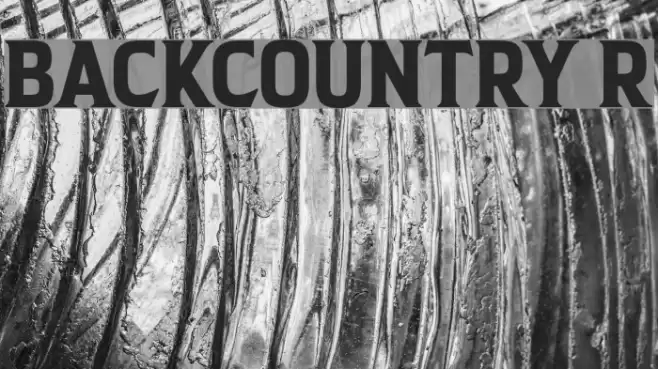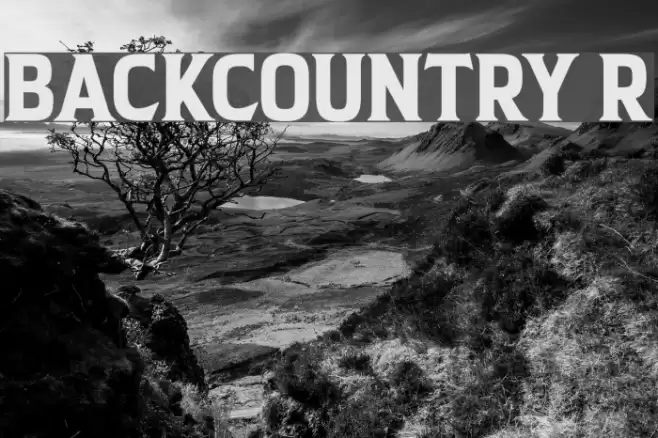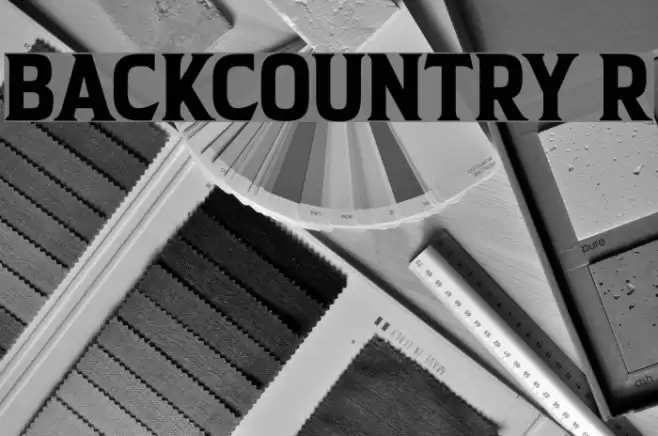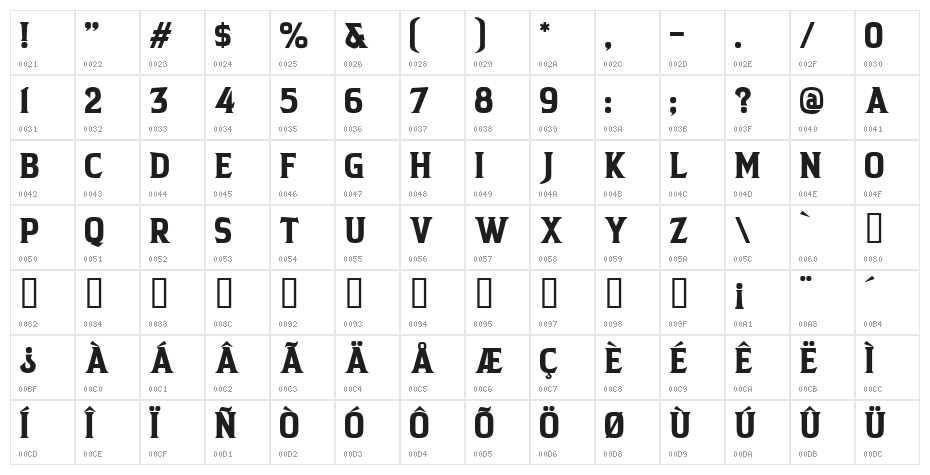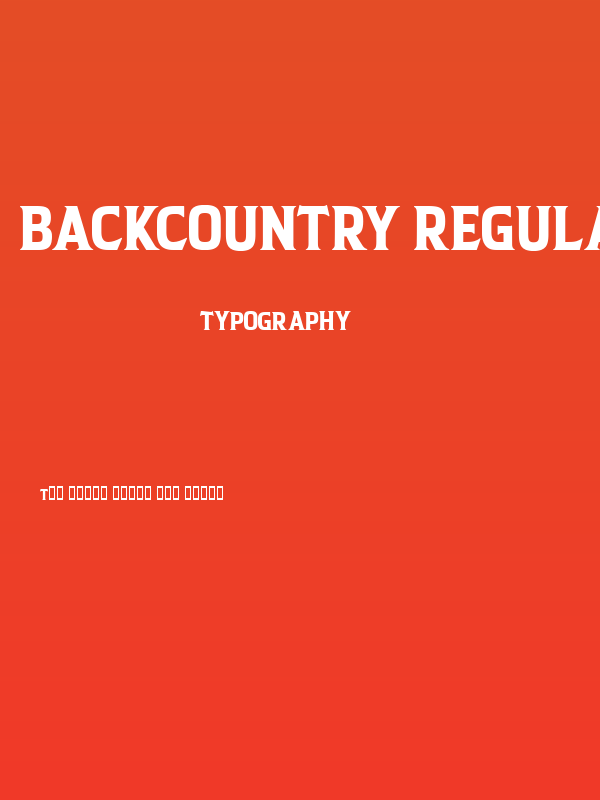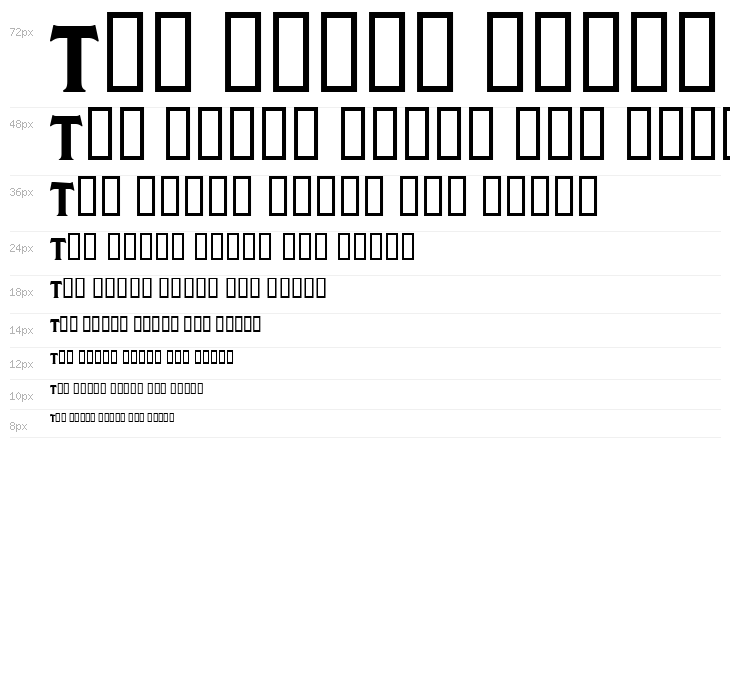
BACKCOUNTRY Regular Font
BACKCOUNTRY Regular Description
This font features bold, angular letterforms with a strong presence, making it ideal for impactful designs. The uppercase letters are particularly striking, with sharp serifs and a slight slant that adds dynamism. The numbers and special characters maintain this bold aesthetic, ensuring consistency across all characters. The overall design is reminiscent of vintage signage, yet it retains a modern edge that makes it versatile for various applications.
Bold, angular font with sharp serifs and a vintage-modern appeal from Uncategorized fonts.
- Proposed Projects: Ideal for branding, headlines, posters, and any design requiring a strong, impactful typeface.
- Overall Style: Vintage, Modern